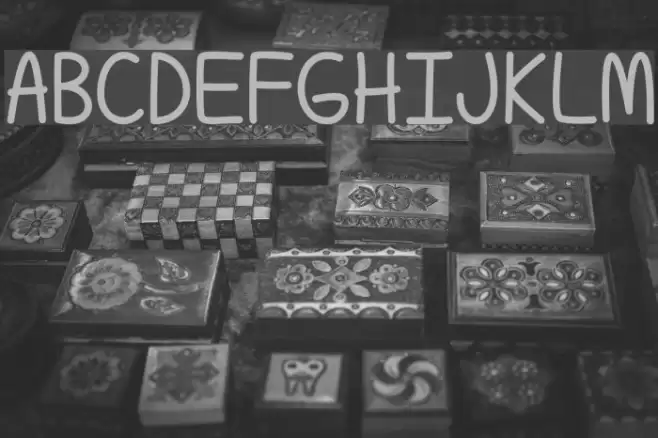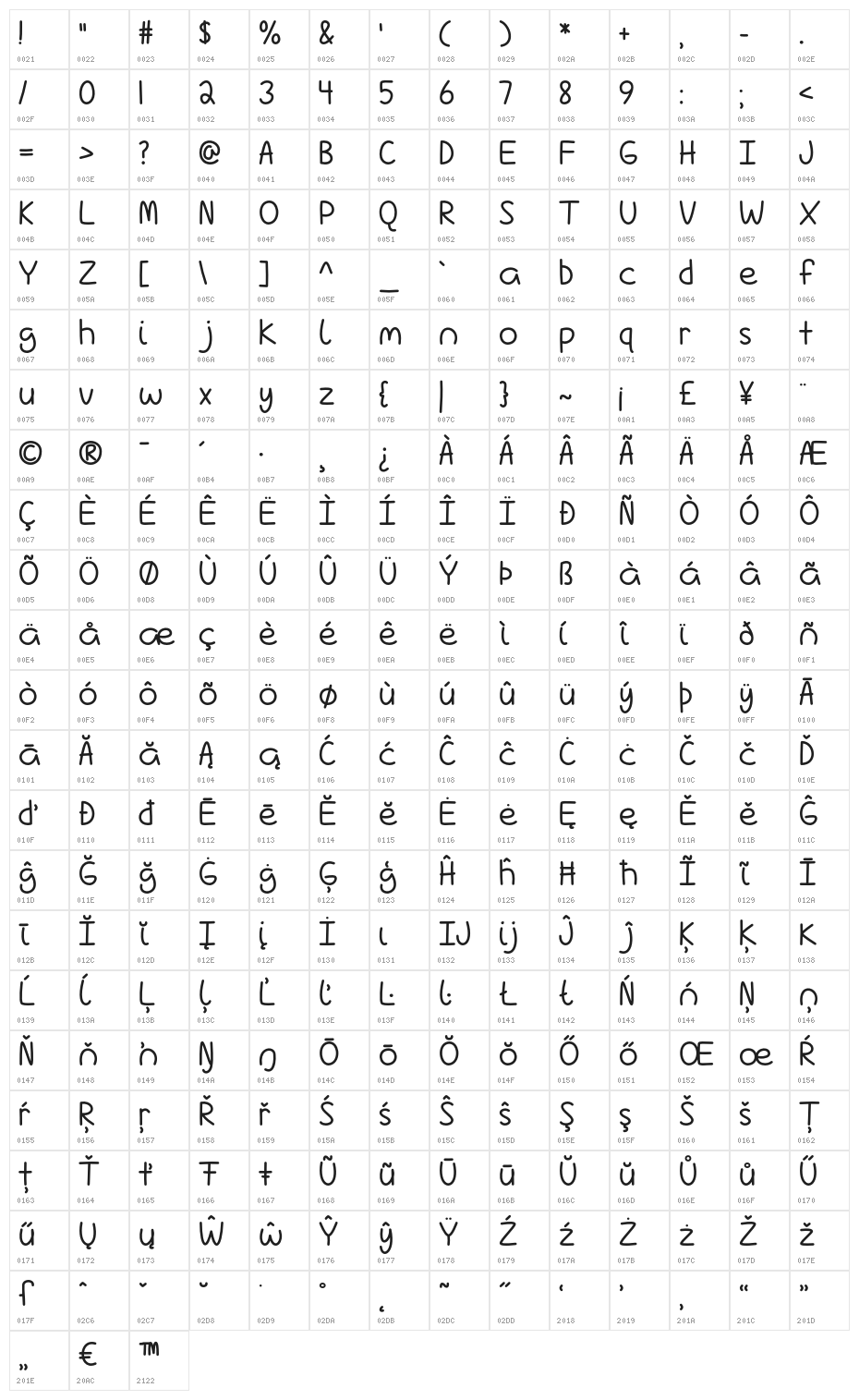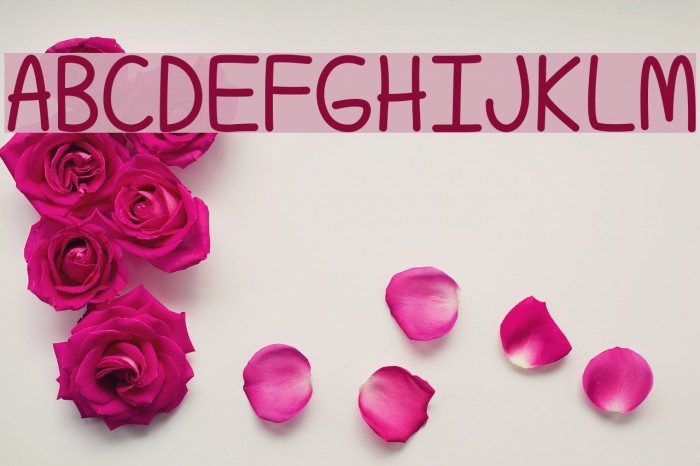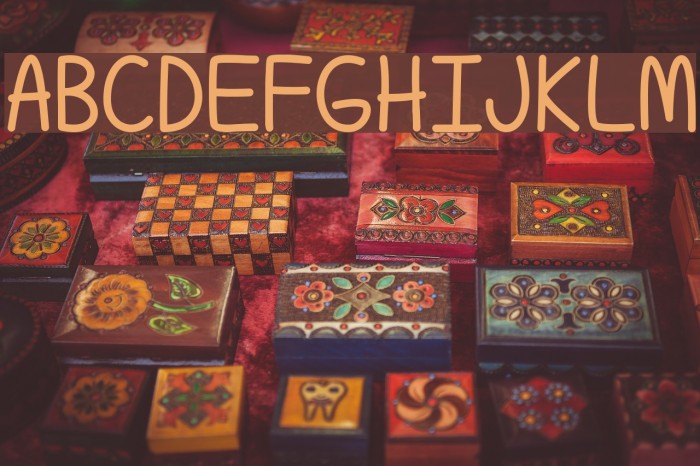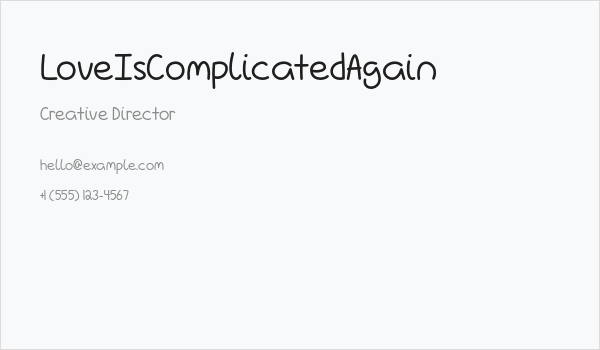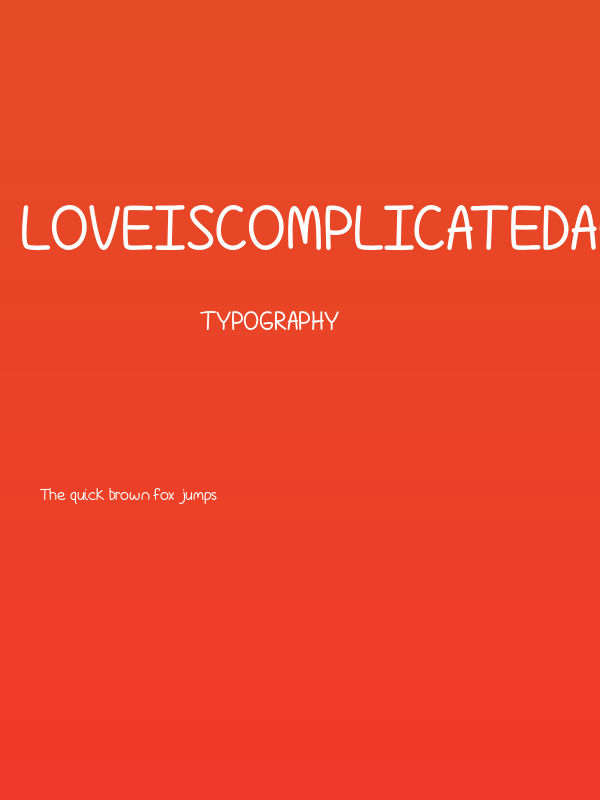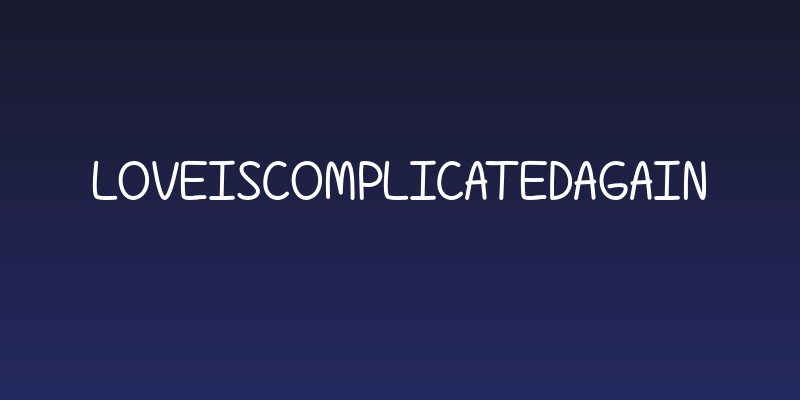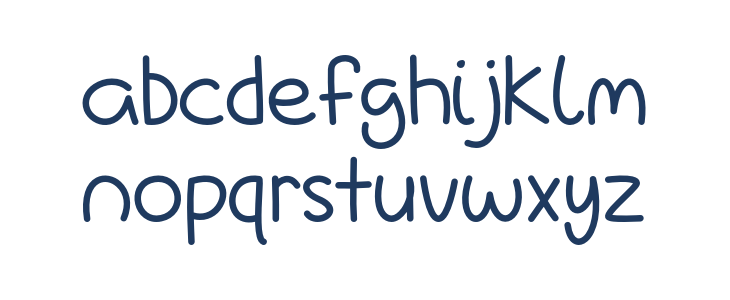
LoveIsComplicatedAgain Font
LoveIsComplicatedAgain Description
This playful and whimsical font features a handwritten style with rounded edges and a casual appearance. The characters are slightly uneven, giving it a charming and approachable feel. The uppercase and lowercase letters maintain a consistent flow, while the numbers and special characters are designed to match the overall aesthetic. The font's informal nature makes it suitable for creative projects that require a personal touch. Its legibility is maintained despite the playful design, making it versatile for various uses.
A playful, handwritten font with rounded edges and a casual style from Uncategorized fonts.
- Proposed Projects: Ideal for greeting cards, children's books, playful branding, and social media graphics.
- Overall Style: Casual
- Use Case: Headlines, Logos, Informal text